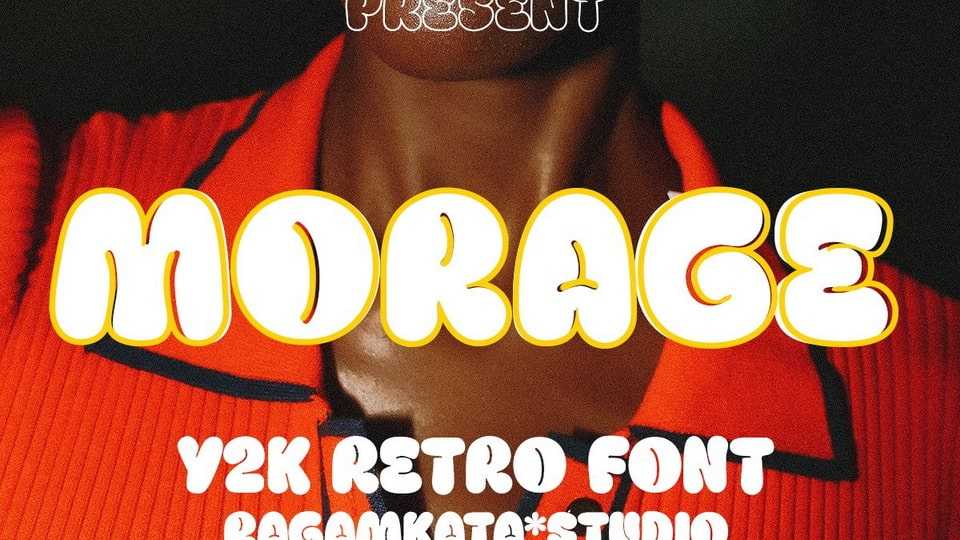
Download Morage font, the ultimate typeface for Y2K design projects! With its aesthetic and bubble-inspired curves, Morage captures the retro-futuristic vibe.